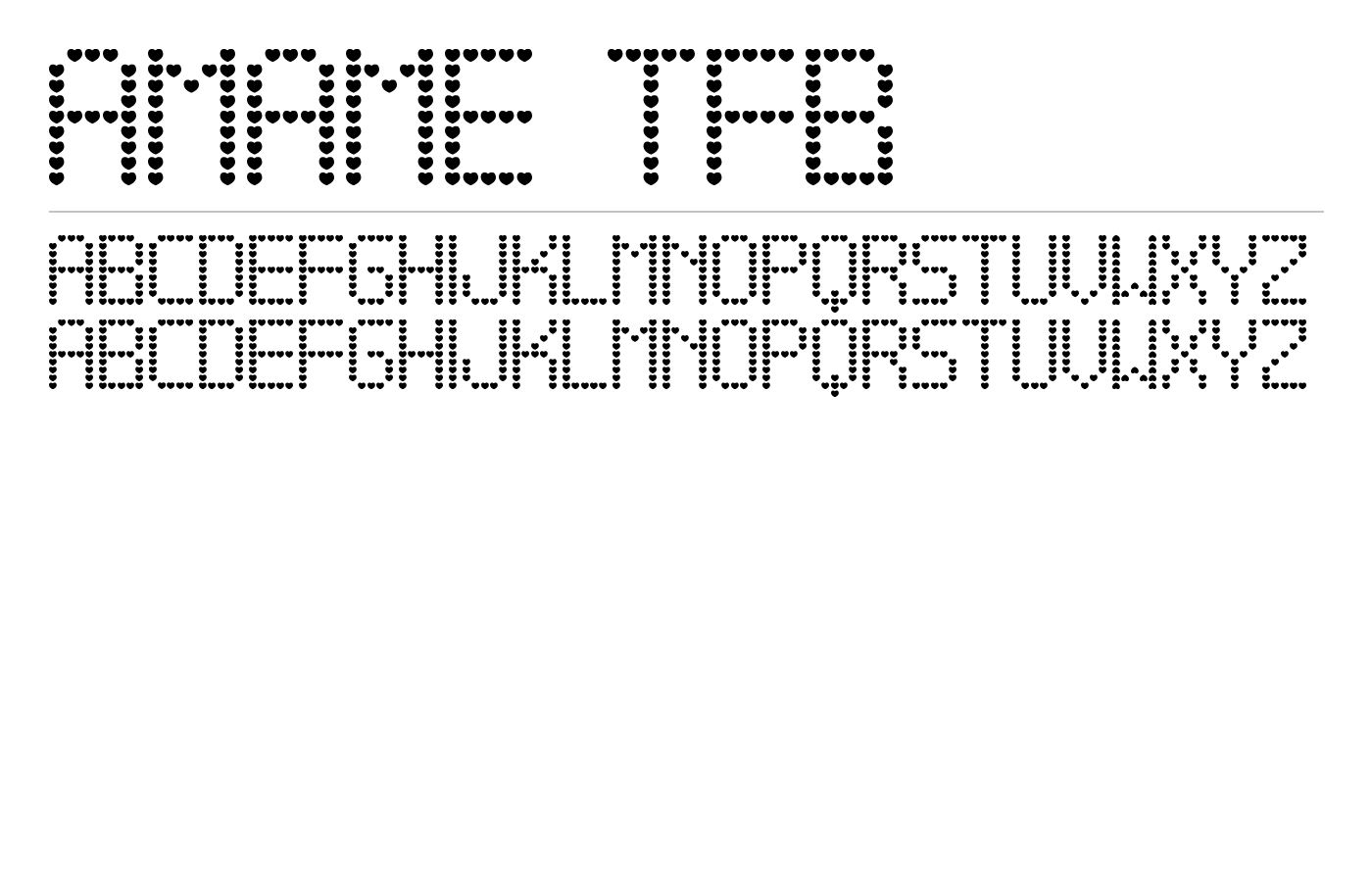
Amame tfb is a unique, display sans serif font characterized by its playful, dotted construction that forms each letter from small heart-shaped marks. This font has a light, airy feel with consistent stroke weight and geometric letterforms, making it ideal for fun, youthful designs such as invitations, children's products, or creative branding that seeks a whimsical and friendly vibe. Its stylized appearance is best suited for headlines or decorative use rather than body text due to its decorative and intricate nature.
Amame tfb Font
About Amame tfb Font